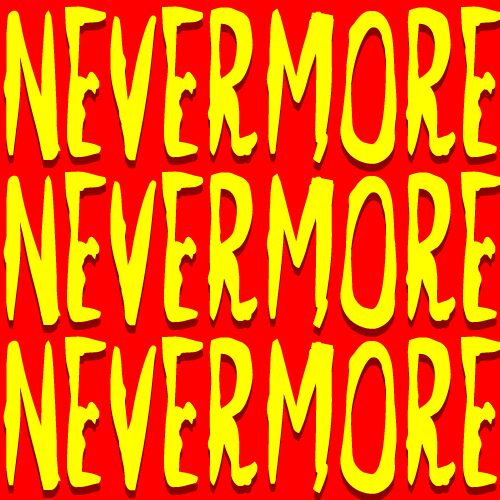
Nevermore by Skyhaven is a free scary display font with tall, narrow letters and a rough, hand-cut silhouette. Sharp nicks, thorn-like projections, and uneven stroke widths give the forms a restless Gothic edge.
A horror attraction or dark entertainment brand could use its warped shapes as a recognizable signature across posters and merchandise. The same distressed, organic drawing suits Halloween packaging and album artwork, especially when the lettering needs to echo tangled branches, torn fabric, or dripping wax. Its clearest audience is designers working in horror, heavy music, and macabre seasonal events.